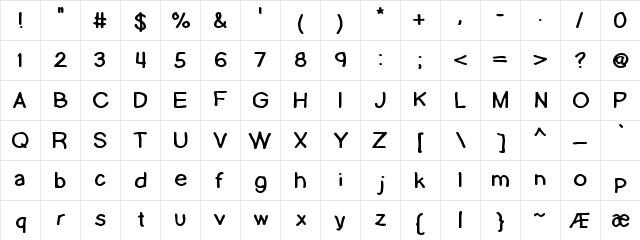
Lamebrain BRK Regular
Design Context for Lamebrain BRK Typeface
Lamebrain BRK is a composed and adaptable typeface that performs quietly and consistently across a wide range of design contexts.
Pro Tip: Use Lamebrain BRK in both headline and body roles to test its range before committing to a single application.